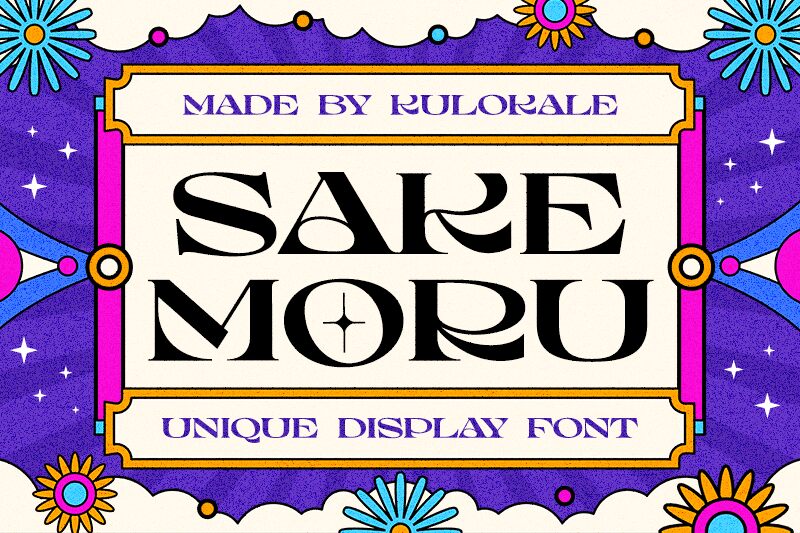
Sake Moru, crafted by Kulokale Studio, is a mesmerizing display font that exudes retro vibes with its expanded width. Perfect for projects seeking a touch of nostalgia and vintage flair, Sake Moru adds a distinctive charm to branding, packaging, and logo designs. Its bold and expressive nature makes it ideal for eye-catching headlines in magazines or posters. Bring back the glory of the past with Sake Moru's unique retro style, making your designs stand out from the crowd and leaving a lasting impression on viewers.
Sake Moru Regular